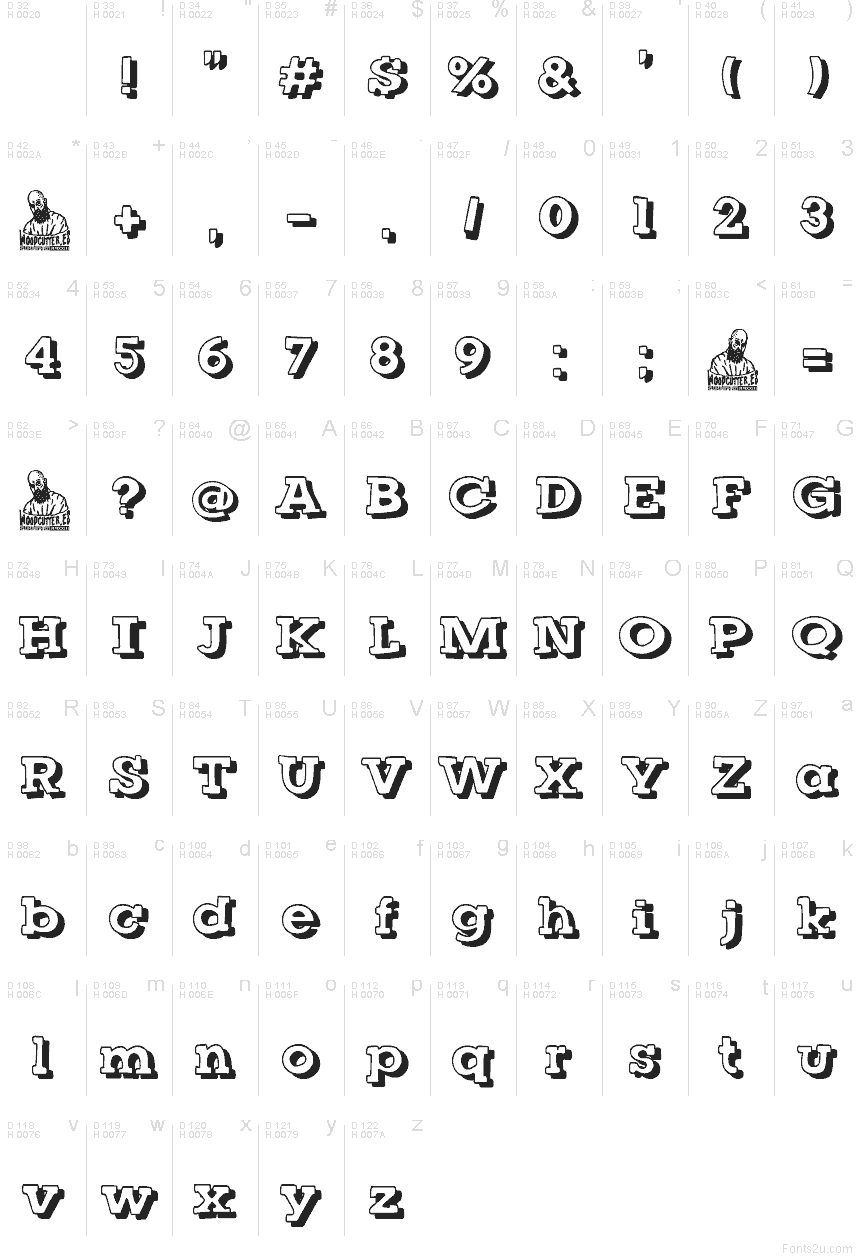
Compro Oro
Compro Oro font by Woodcutter is a free cartoon display typeface with big, bouncy letters that feel like they’ve been cut from thick, glossy stickers. Each character has chunky outlines, bold inner shading, and round, eye-like counters that give words a playful, slightly mischievous expression. The whole thing reads like a hand-drawn sign outside a candy shop—loud, friendly, and impossible to ignore.
Using Compro Oro, you can crank up the fun in kids’ branding, snack or candy packaging, comic titles, party invitations, YouTube thumbnails, and game logos. This free font shines at large sizes where its layered, inky contours can really pop, and it pairs easily with a clean geometric sans for body text or taglines.